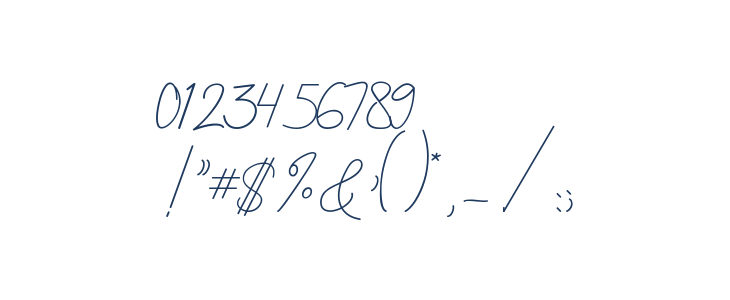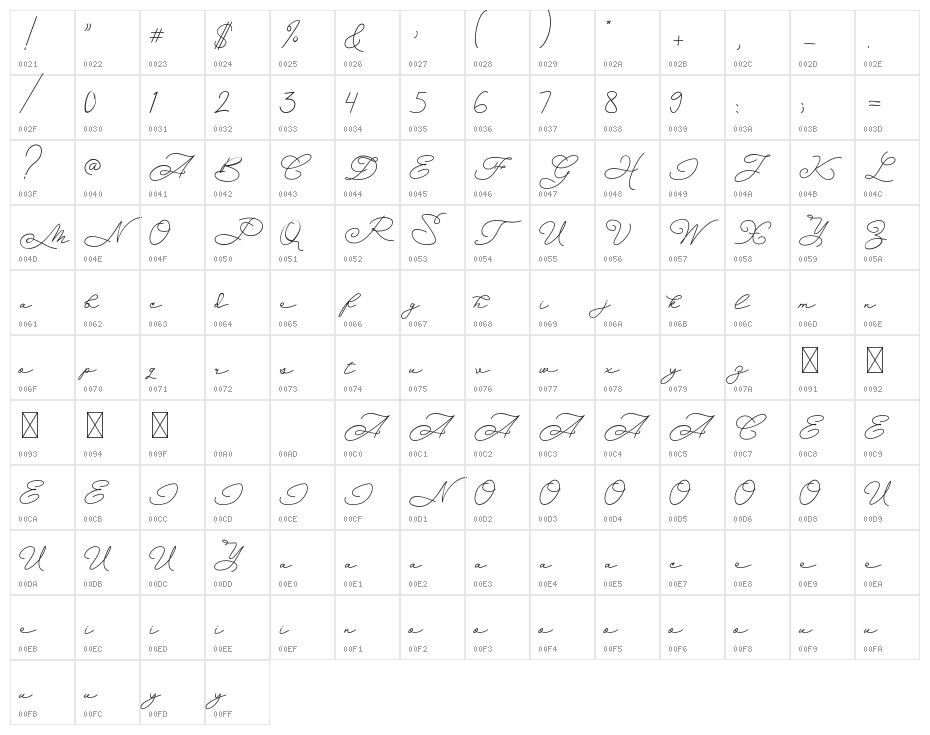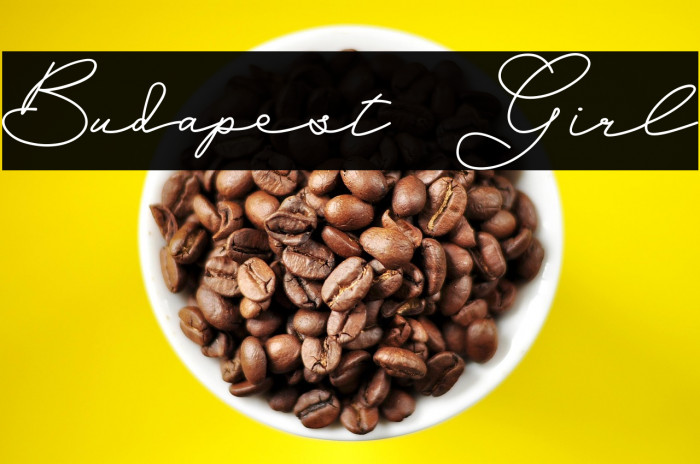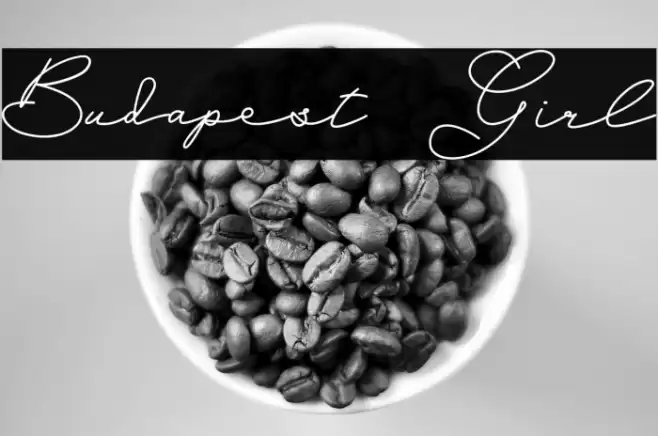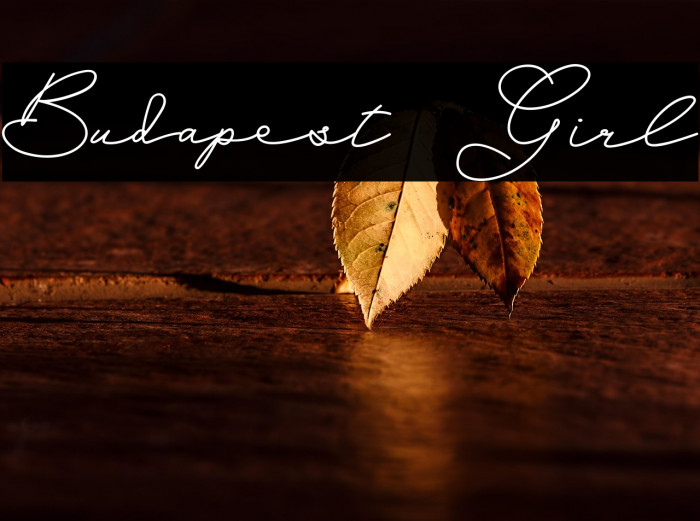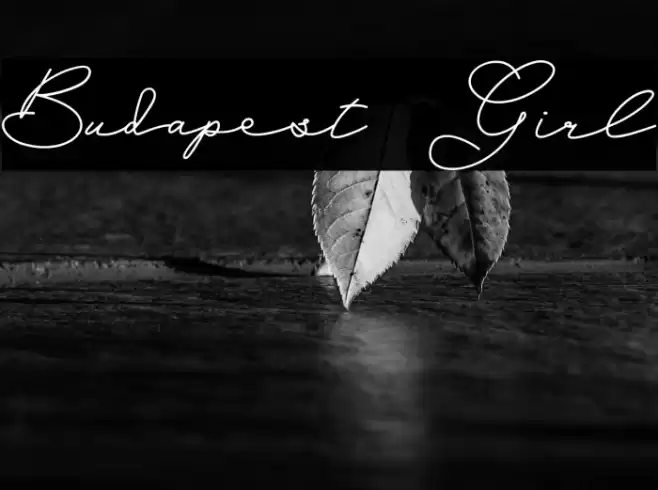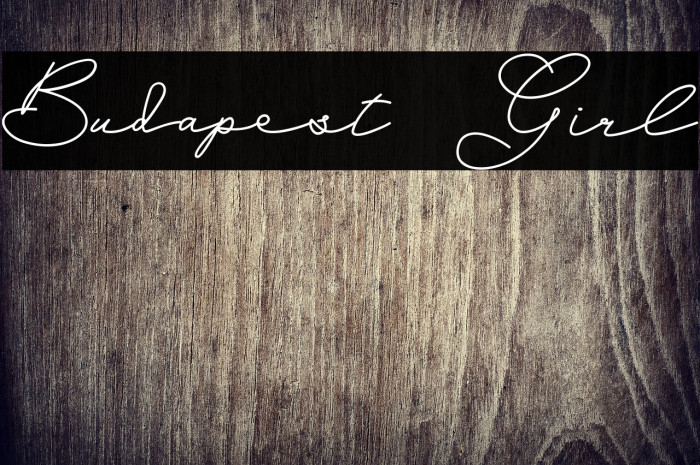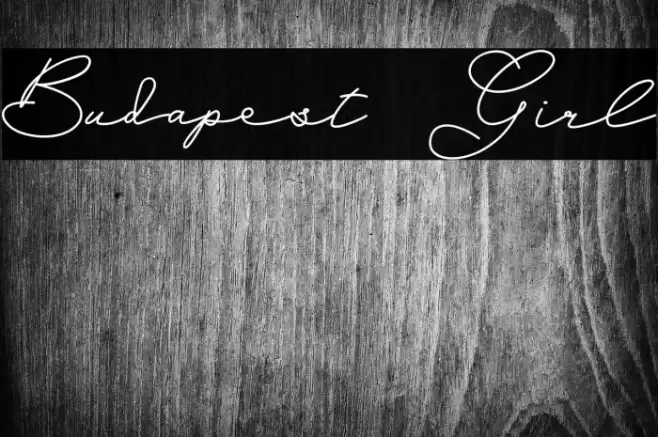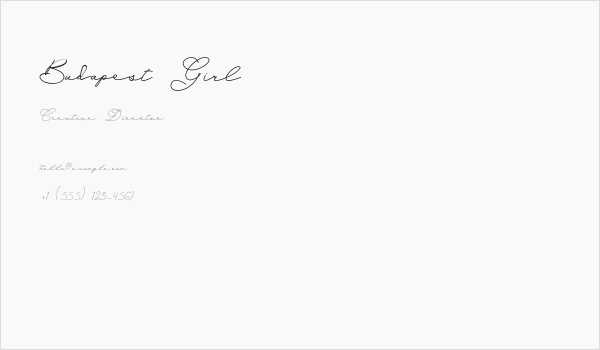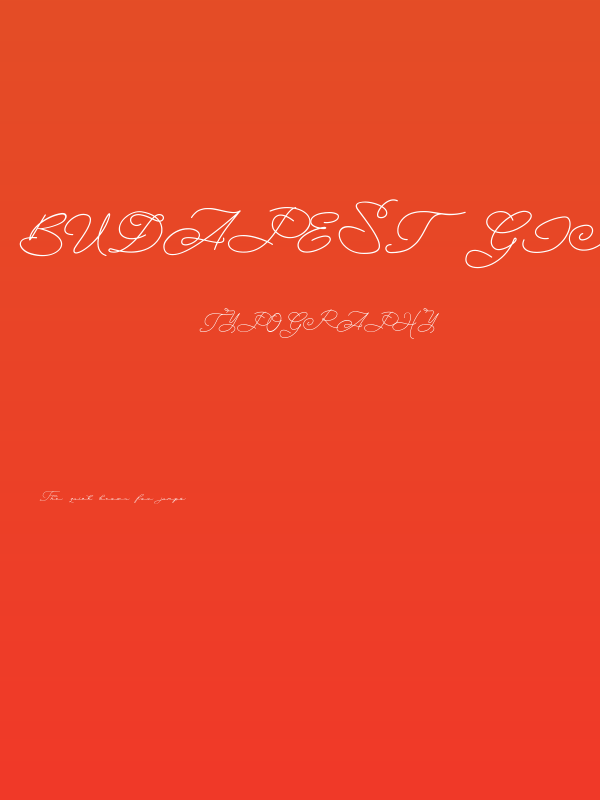
Budapest Girl Font
Budapest Girl Description
This elegant script font features a flowing, cursive style with intricate loops and swashes, giving it a sophisticated and artistic appearance. The uppercase letters are characterized by their elaborate flourishes, while the lowercase letters maintain a smooth and connected flow. The numerals are distinct yet harmonize well with the overall style, and the special characters are crafted with the same attention to detail. The font's delicate strokes and graceful curves make it ideal for projects that require a touch of elegance and refinement.
| Proposed Projects | Ideal for wedding invitations, elegant branding, personal stationery, and artistic projects. |